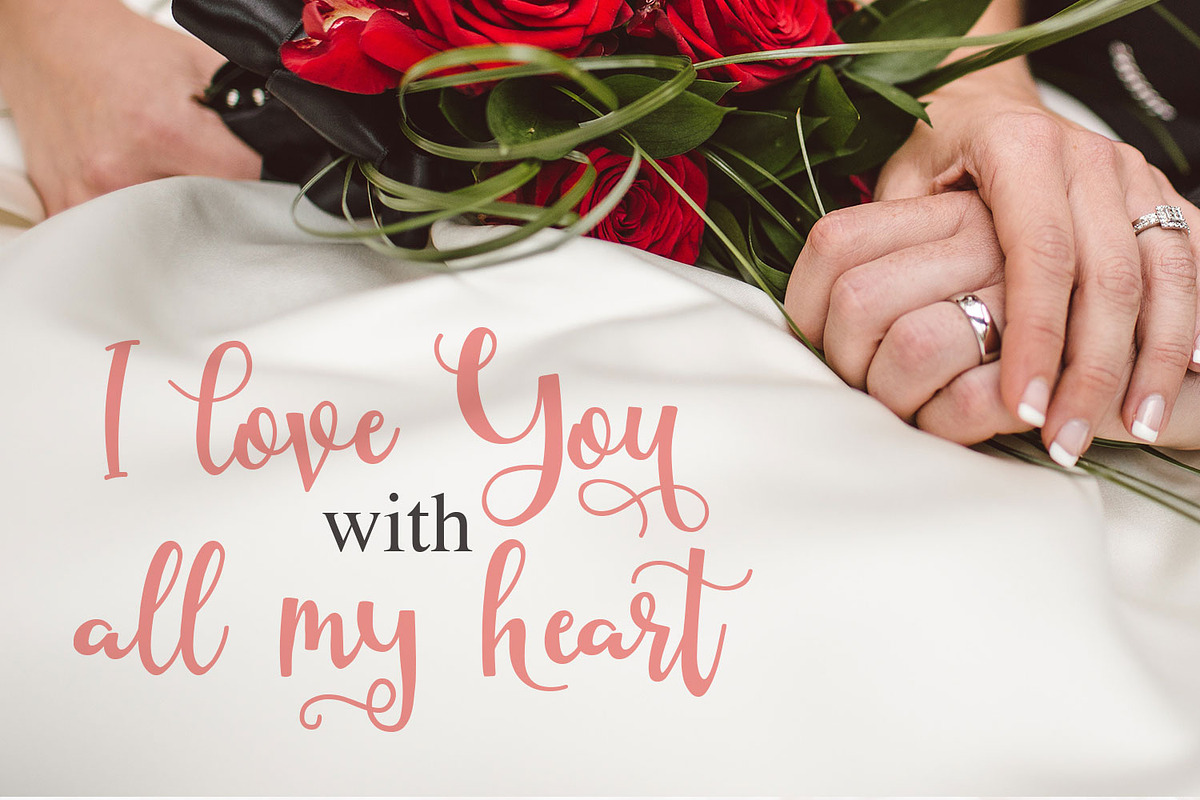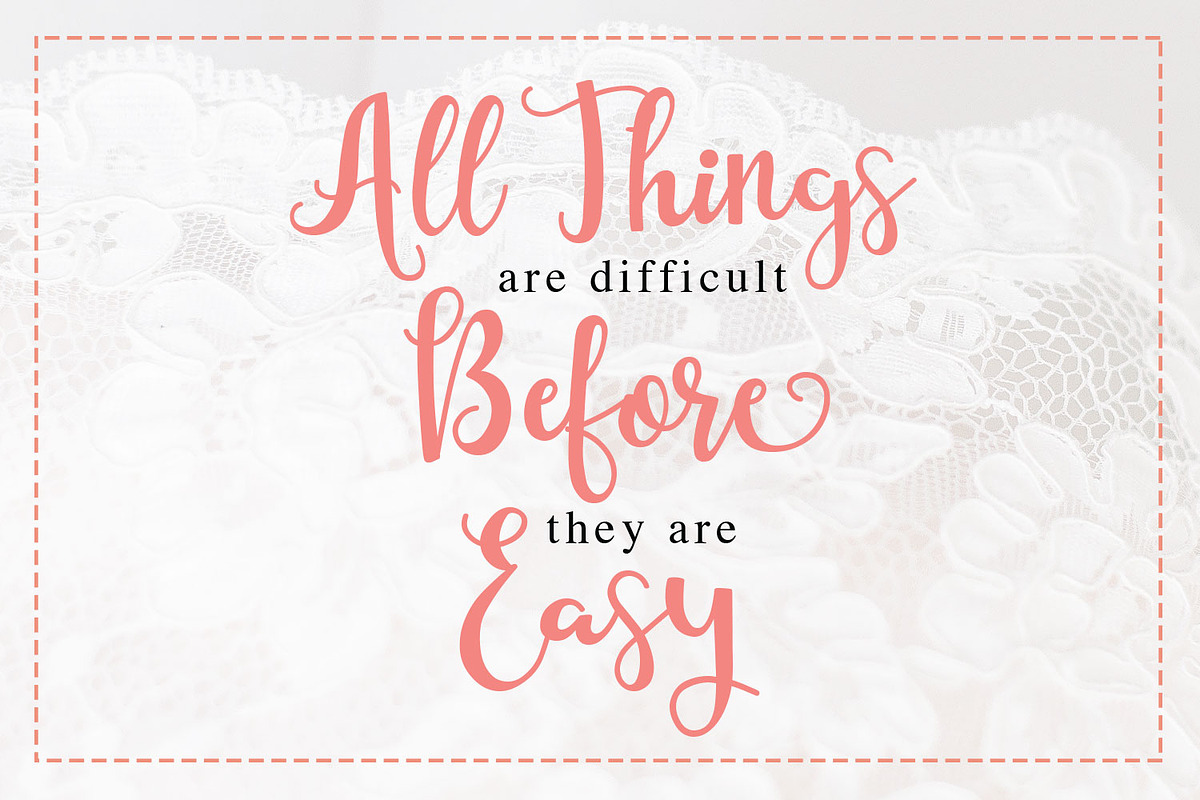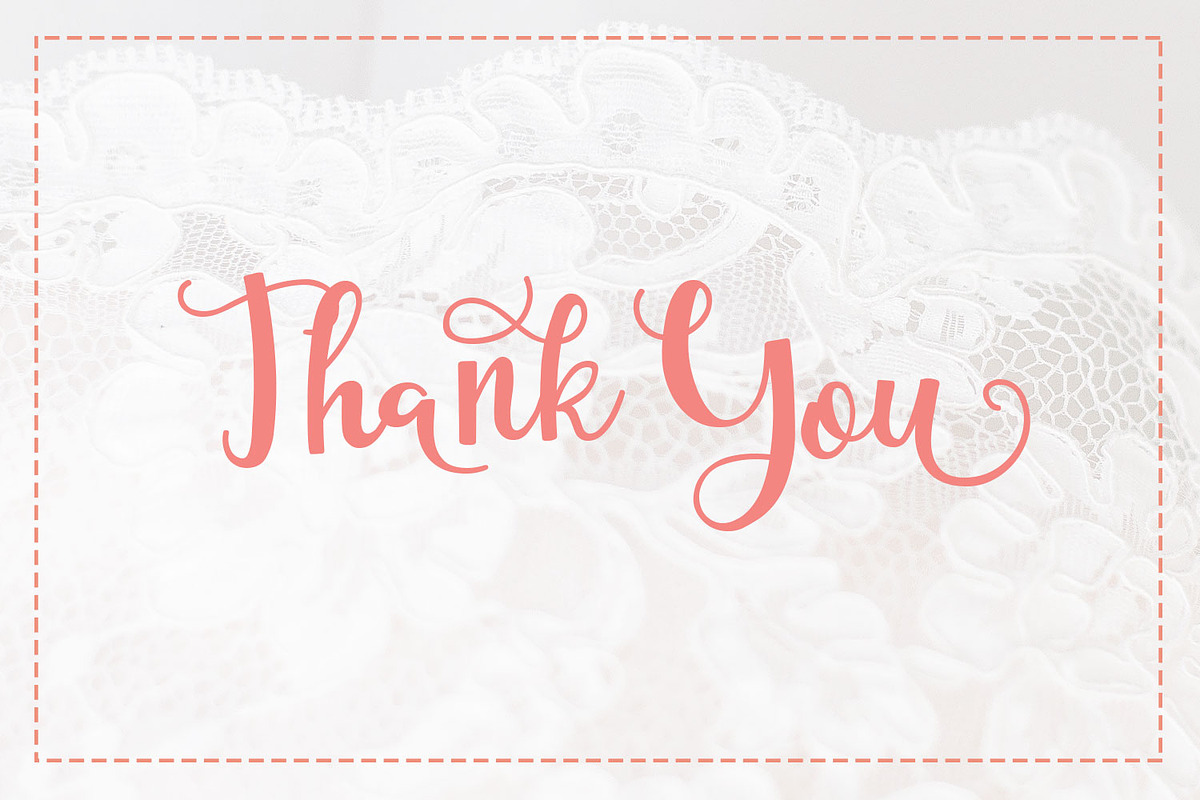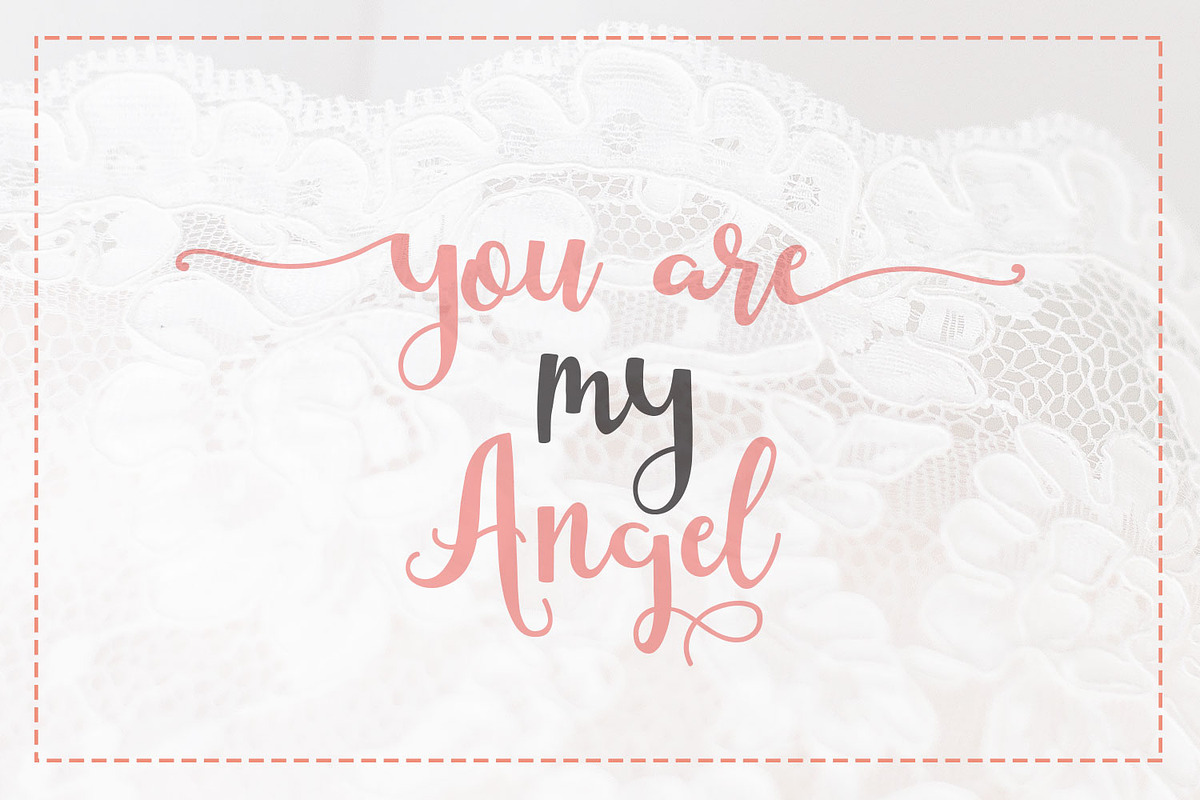
Starlight Script Style
Starlight Script Style is a new modern & fresh calligraphy script with natural style. This font will make your design look elegant, natural and stylish.
Starlight Script Style is perfect for any awesome projects such as photography, watermark, quote design, social media posts, poster, advertisements, logos & branding, invitation, product designs, label, stationery, wedding designs, product packaging, special events or any project that need handwriting taste or just simply design with stylish text overlay to any background image.
- Stylistic alternate & ligature